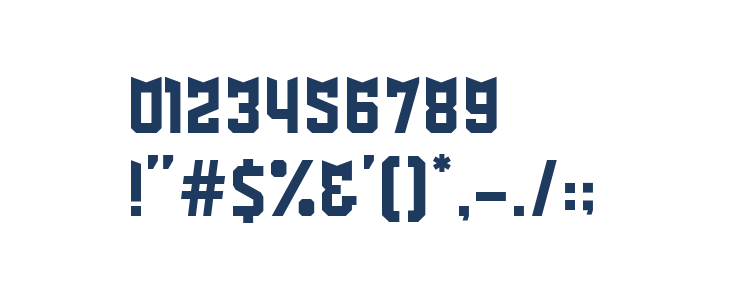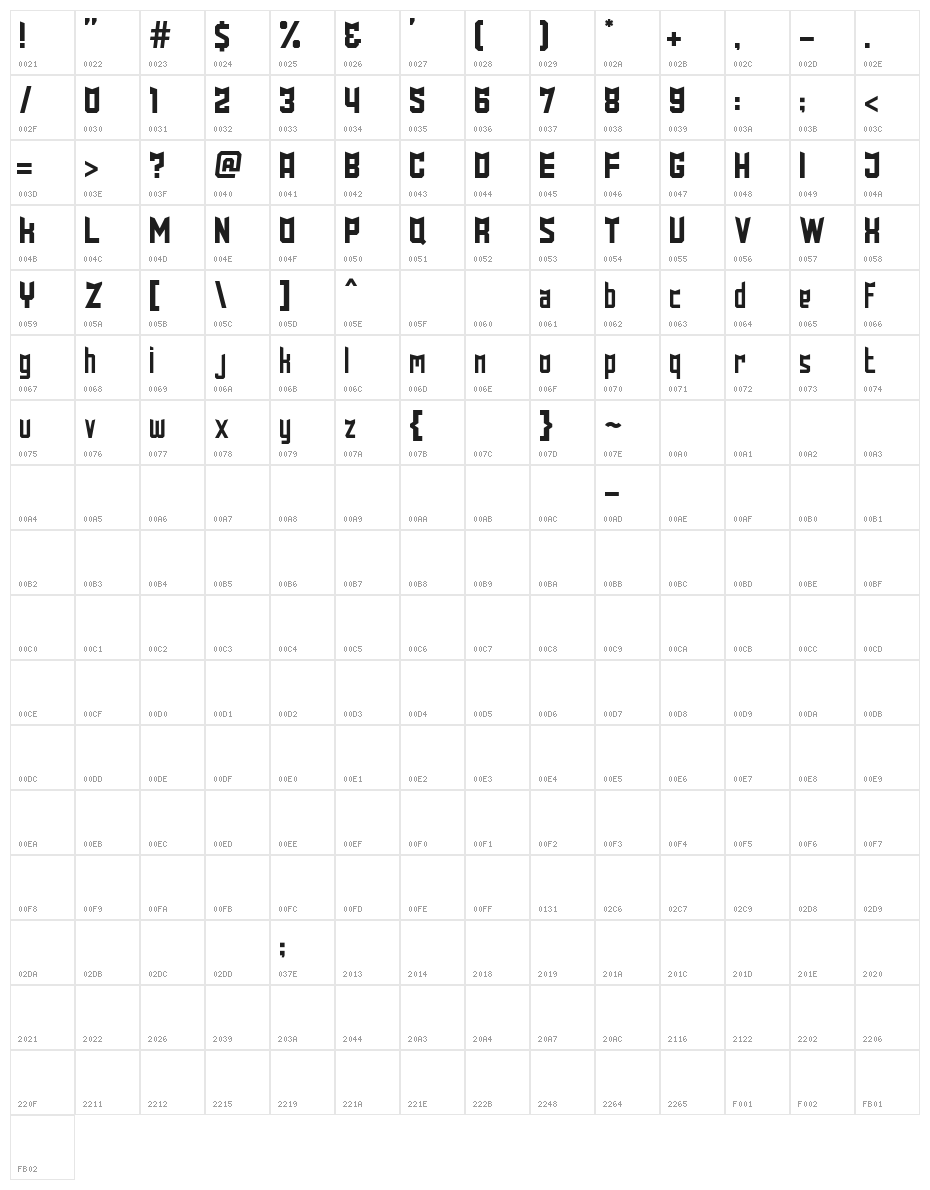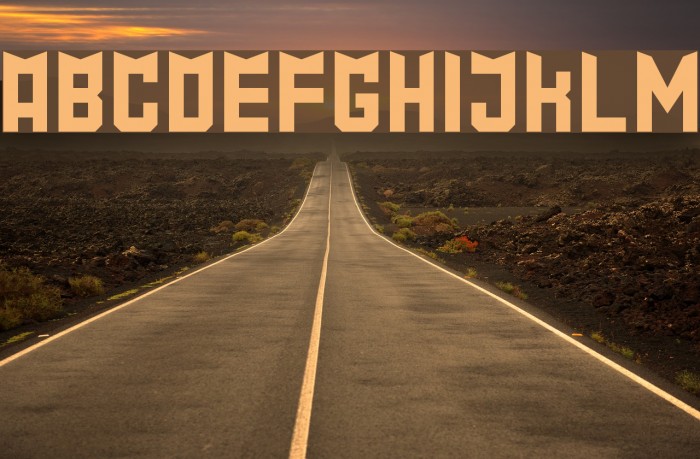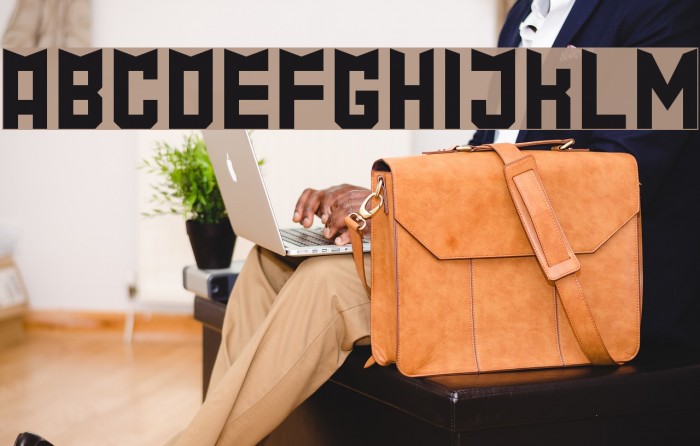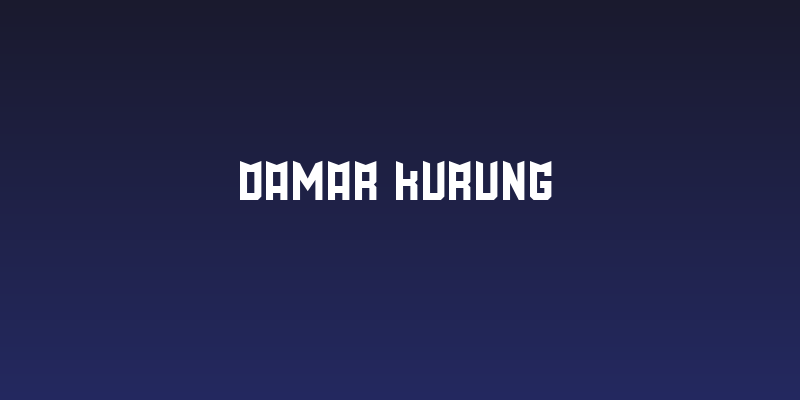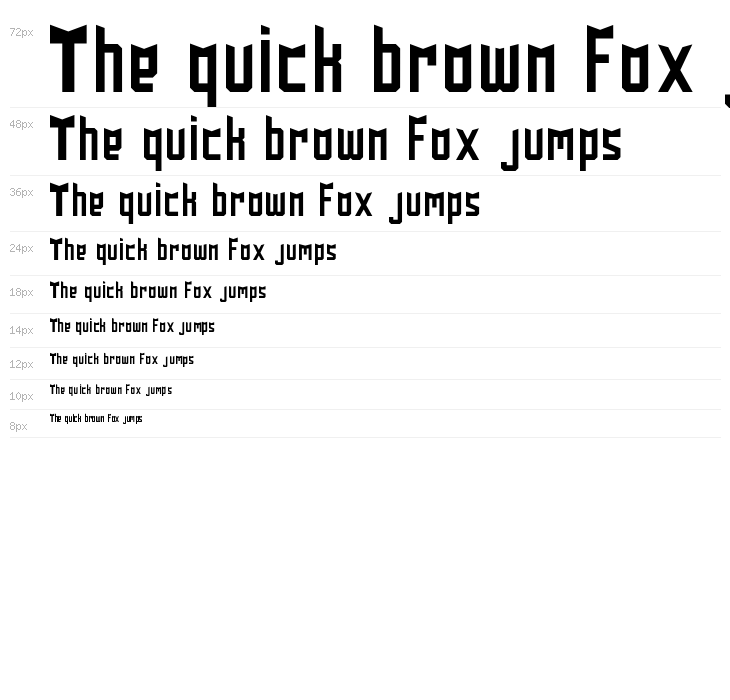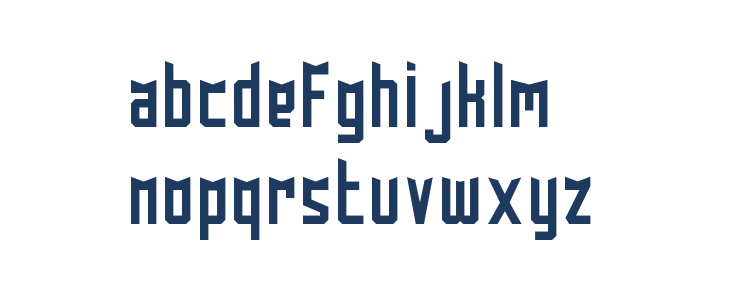
Damar Kurung Font
Damar Kurung Description
This font features a bold, geometric design with sharp angles and a strong presence. The uppercase letters are particularly striking, with a blocky, almost stencil-like appearance that commands attention. The lowercase letters maintain the same geometric style, offering a consistent look across different cases. Numbers and special characters are equally bold and angular, fitting seamlessly with the overall aesthetic. The font's design is reminiscent of industrial or urban themes, making it ideal for projects that require a modern and edgy look.